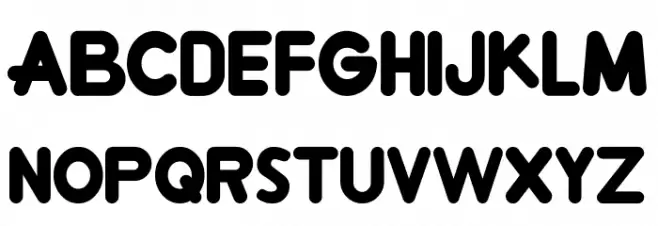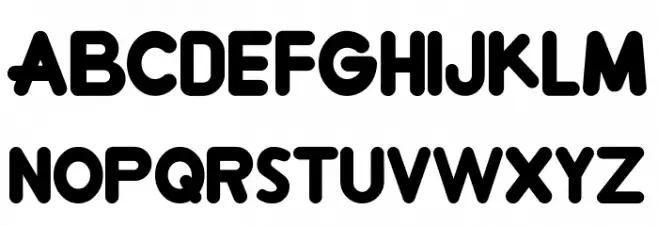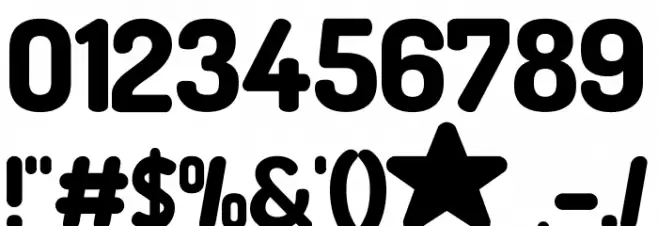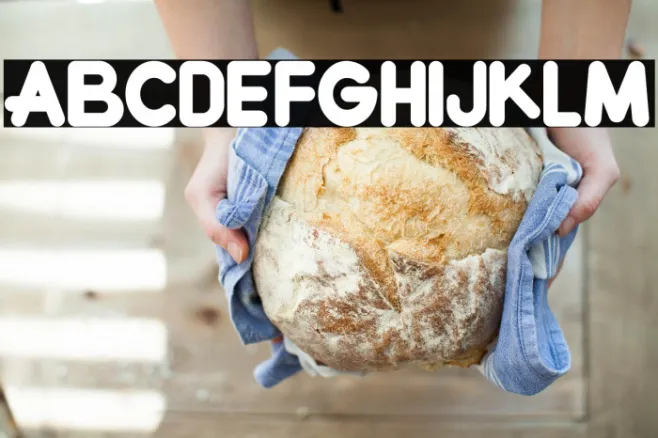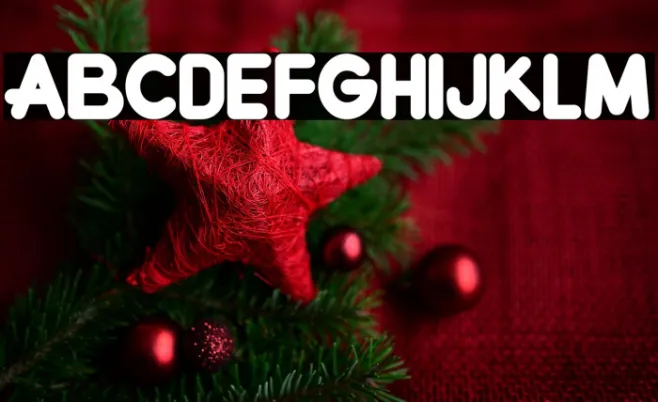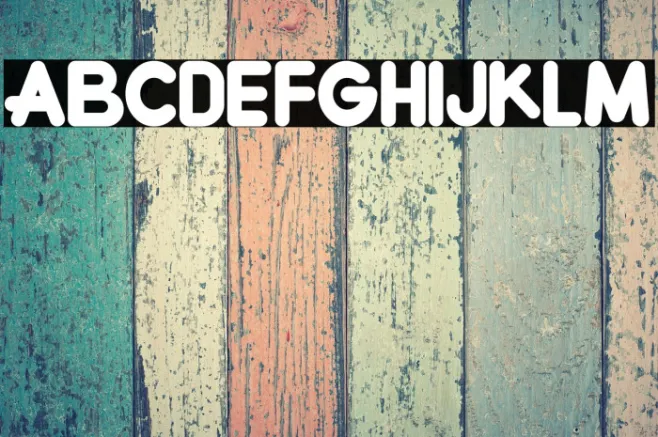
Crewniverse Font
Crewniverse Font V.5
Crewniverse is a font that replicates the one used for the title cards of the TV show Steven Universe(tm), as well as the logo of the Steven Crewniverse's Tumblr.